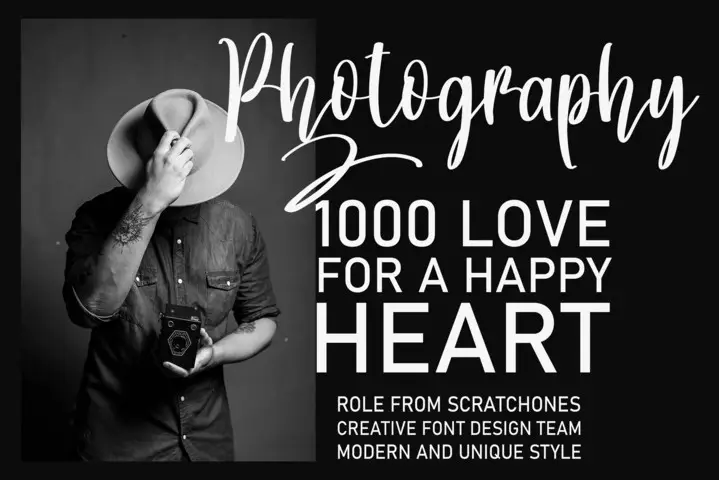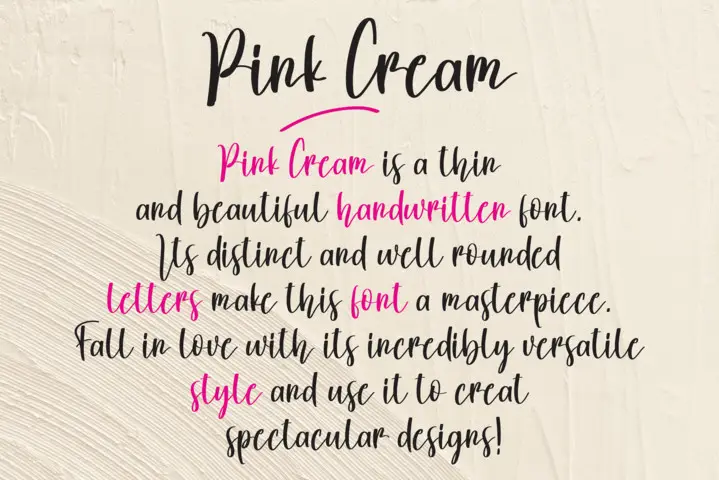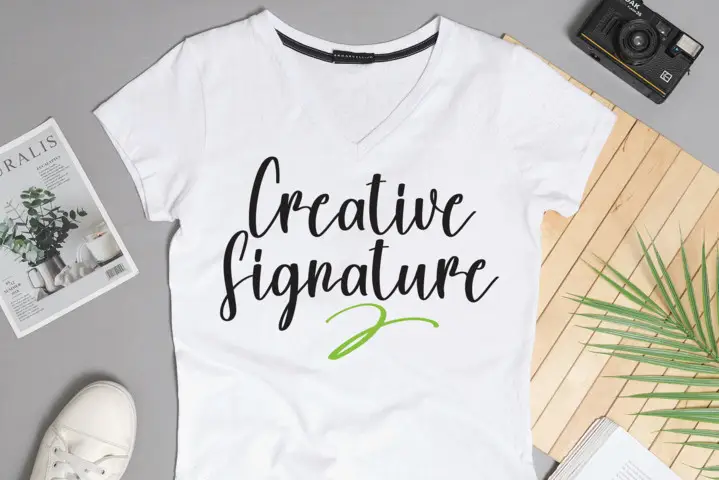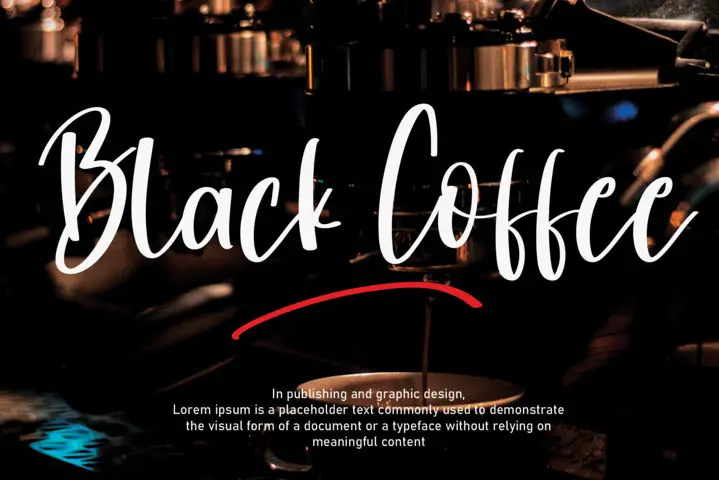
Pink Cream Script Font
The Pink Cream Script Font is a beautifully crafted typeface that brings elegance and sophistication to any design project. With its flowing curves and stylish letterforms, this font is perfect for a variety of applications, from branding to invitations.
• Stylish script design
• Styles: Script
• Great for wedding invitations and greeting cards
• Use in web design for a personal touch